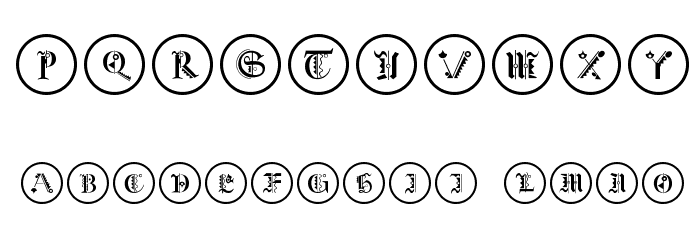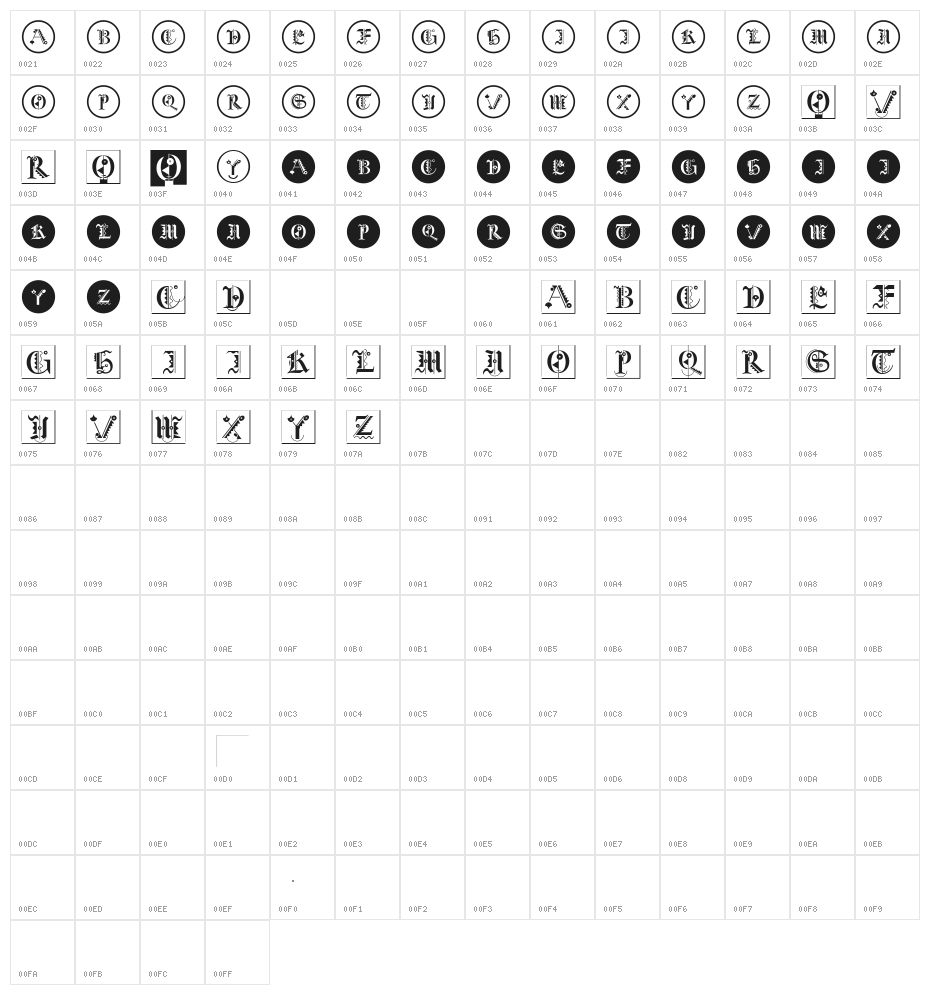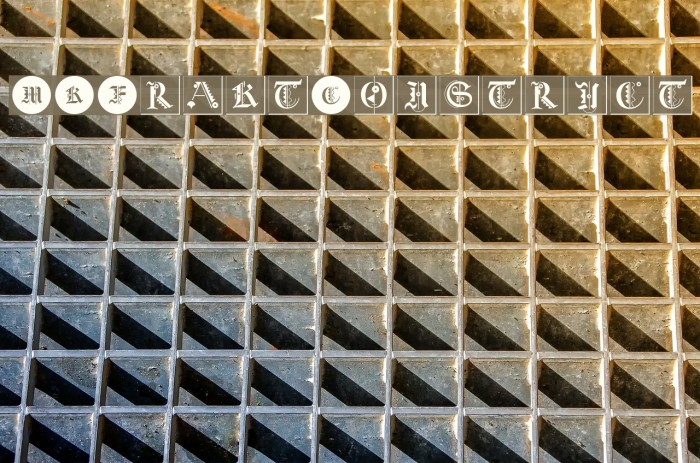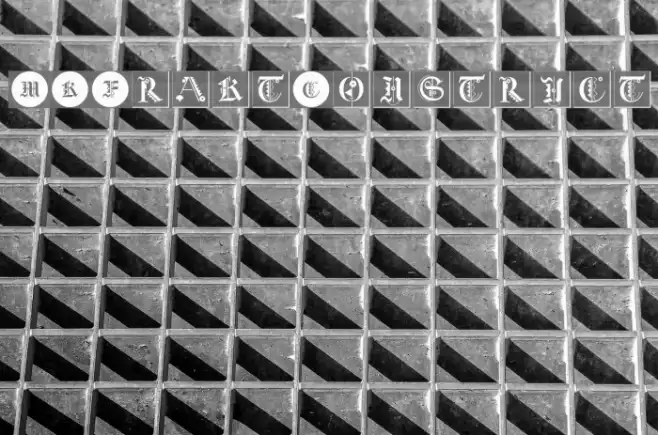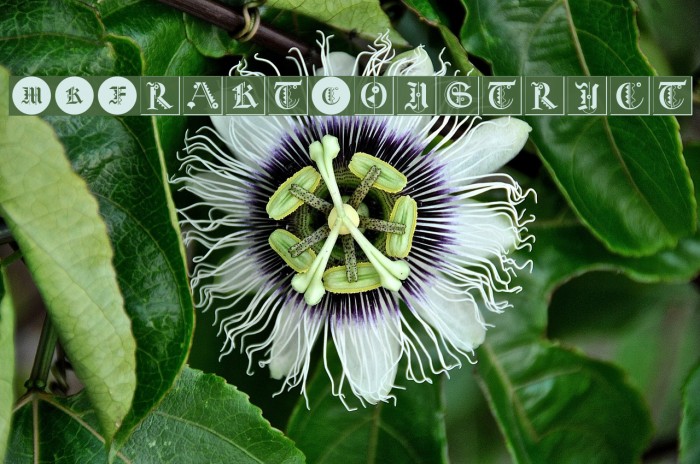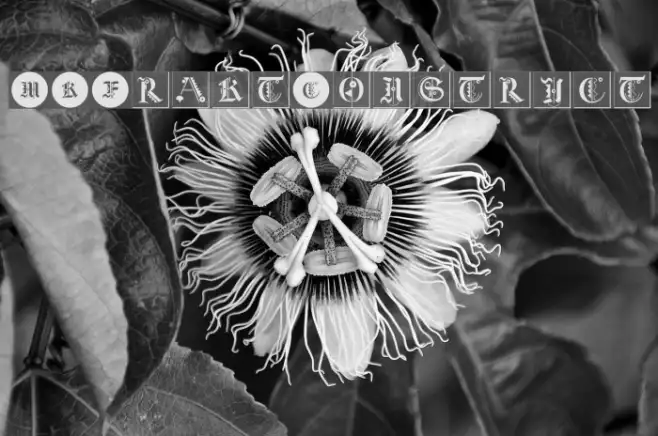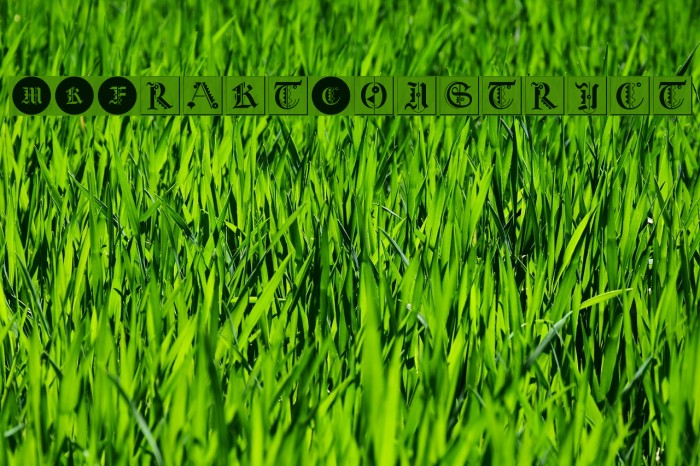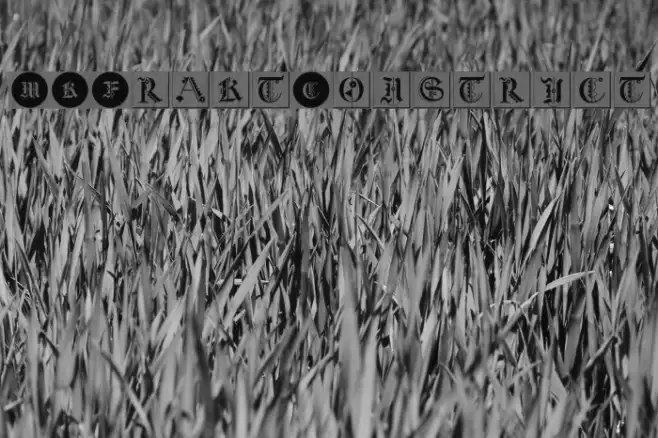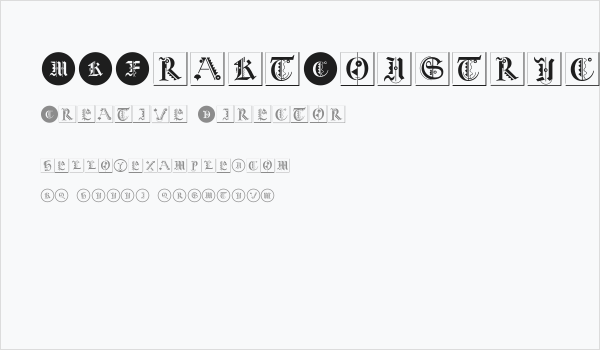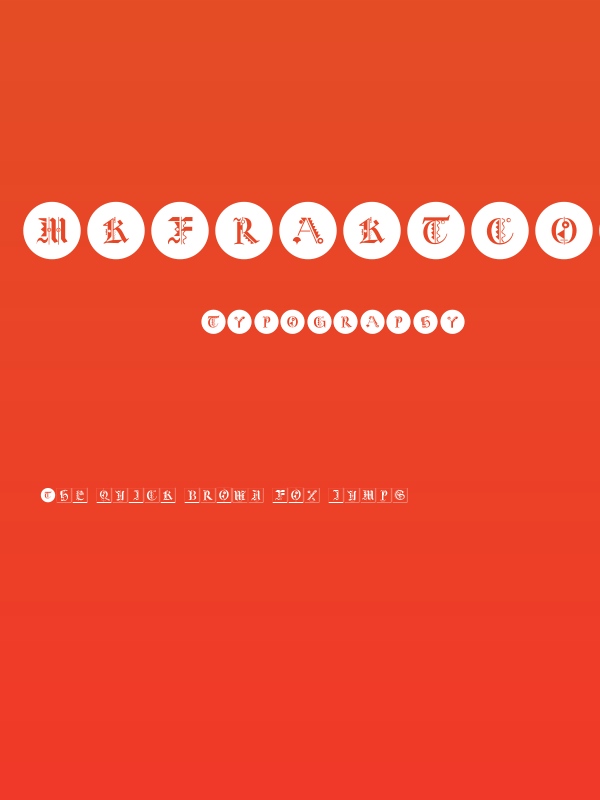
MKFraktConstruct Font
MKFraktConstruct Description
This font is a striking blend of traditional and modern elements, characterized by its bold, blackletter style. Each letter is encased in a circular or square border, adding a unique decorative touch. The intricate design of the characters features sharp angles and flourishes typical of Gothic script, yet it maintains a clean and structured appearance. The uppercase and lowercase letters are consistent in style, with a strong emphasis on vertical strokes and ornate detailing. This font is perfect for projects that require a dramatic and historical aesthetic, such as vintage-themed designs or branding that seeks to convey a sense of tradition and authority.
| Proposed Projects | Ideal for vintage-themed designs, branding, logos, posters, and any project requiring a dramatic, historical aesthetic. |